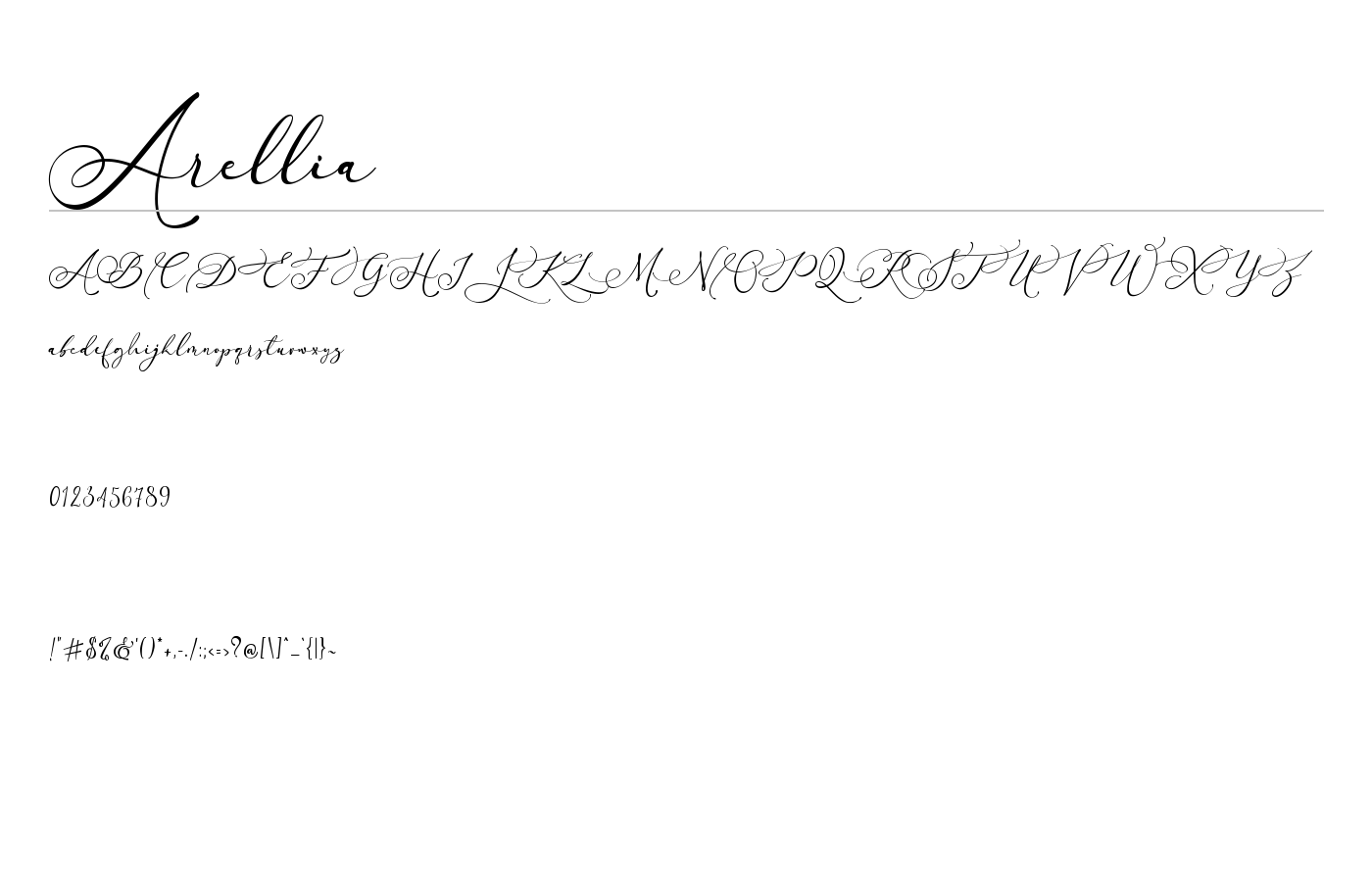
Arellia is an elegant and delicate script font characterized by its fine, flowing strokes and decorative swashes in both uppercase and lowercase letters. This lightweight, high-contrast typeface exudes a sophisticated, romantic feel, making it perfect for luxury branding, wedding invitations, and refined editorial headlines. Its graceful style works best in display use where a touch of classic charm and femininity is desired.
Arellia Font
About Arellia Font